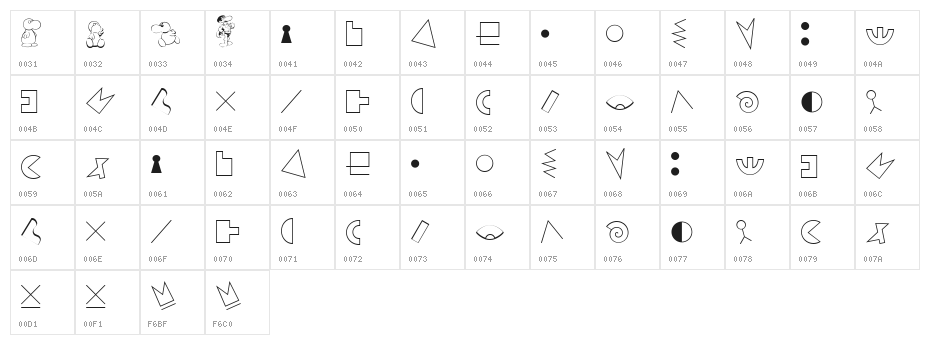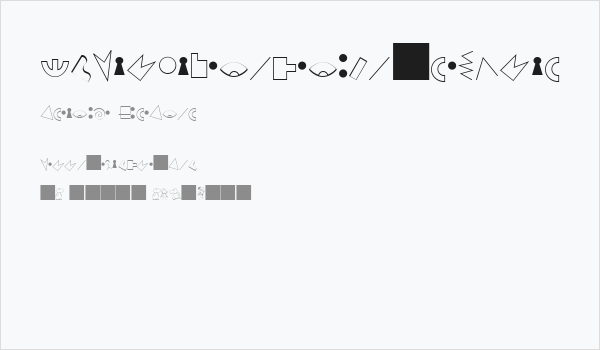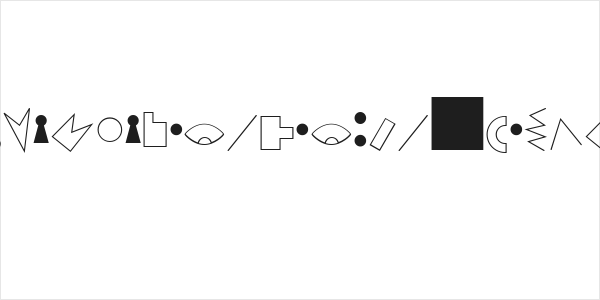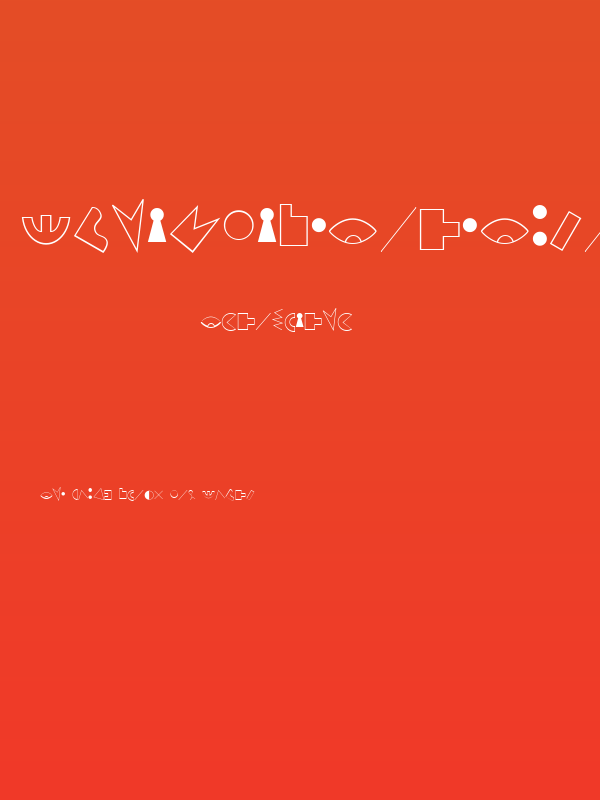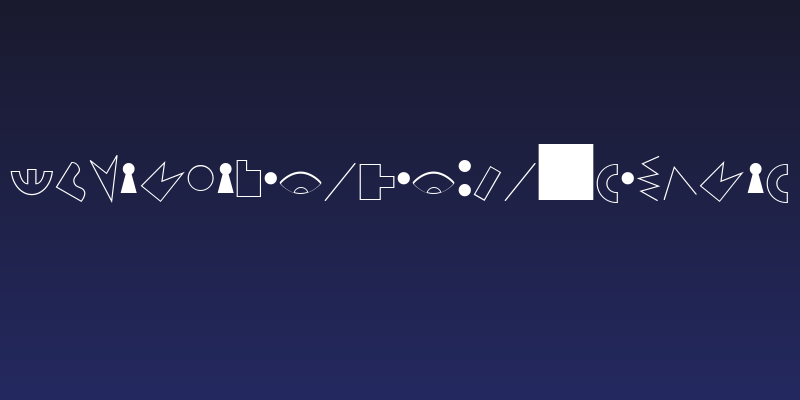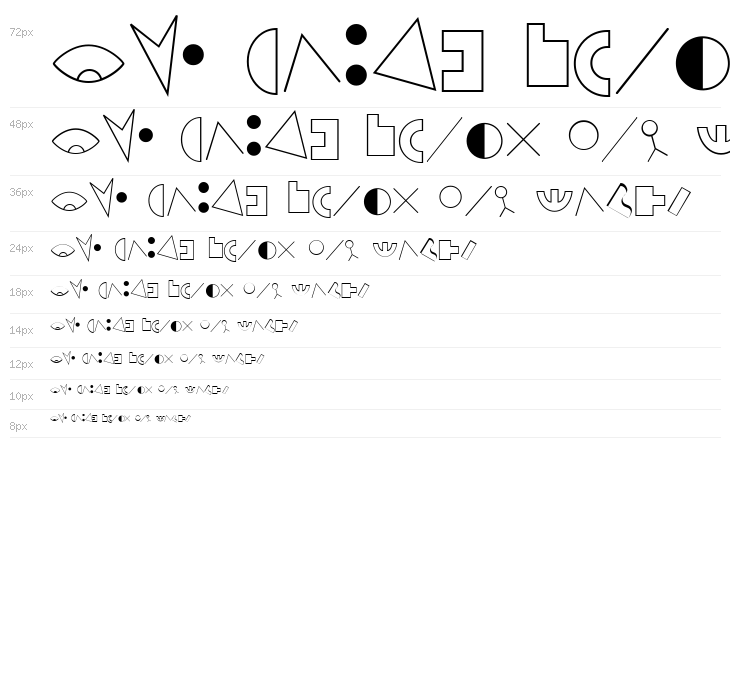
JMHAlfabetoPetiso-Regular Font
JMHAlfabetoPetiso-Regular Description
This font features a highly decorative and abstract design, characterized by geometric shapes and symbols that replace traditional alphanumeric characters. Each character is represented by a unique combination of lines, circles, and angles, creating a visually striking and unconventional appearance. The font lacks traditional readability, making it more suitable for artistic or thematic projects rather than standard text applications. Its playful and imaginative style suggests a creative approach to typography, where the focus is on visual impact rather than legibility.
| Use Case | Logos, Artistic designs |
| Proposed Projects | Ideal for creative projects such as posters, album covers, or any design work that benefits from a unique and artistic touch. |